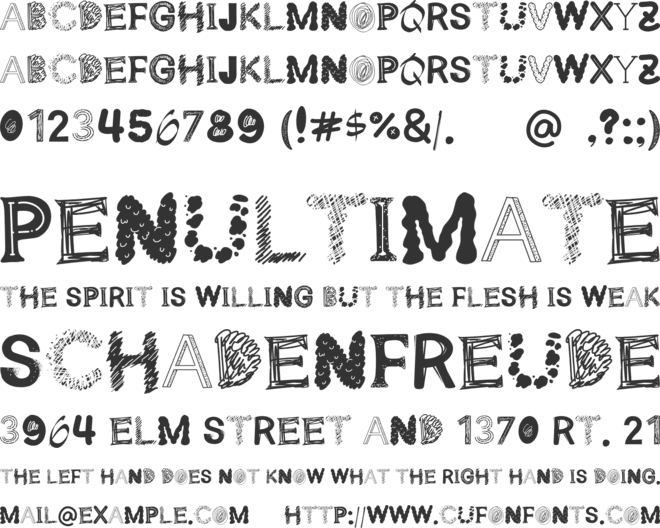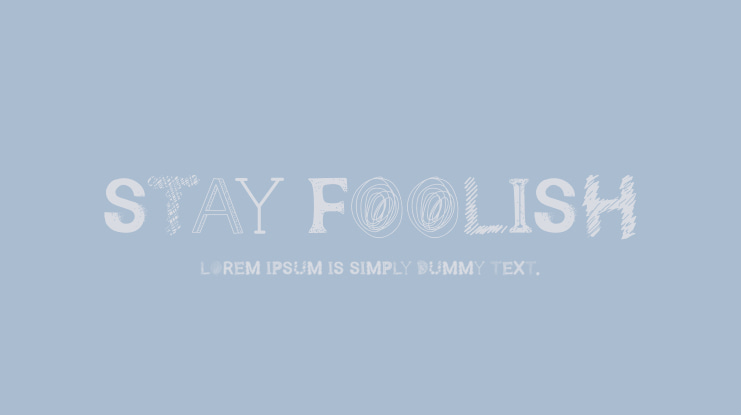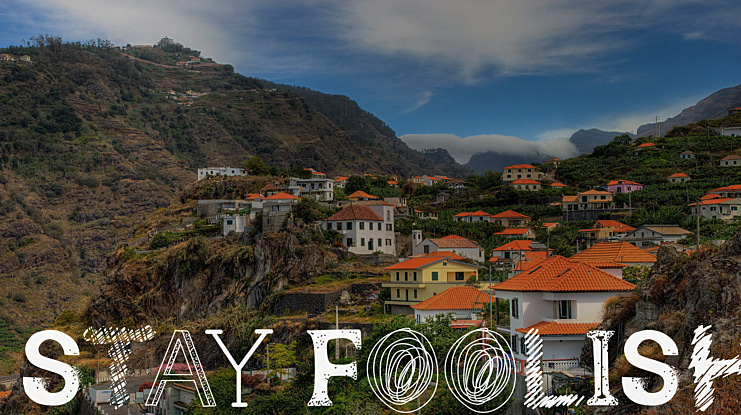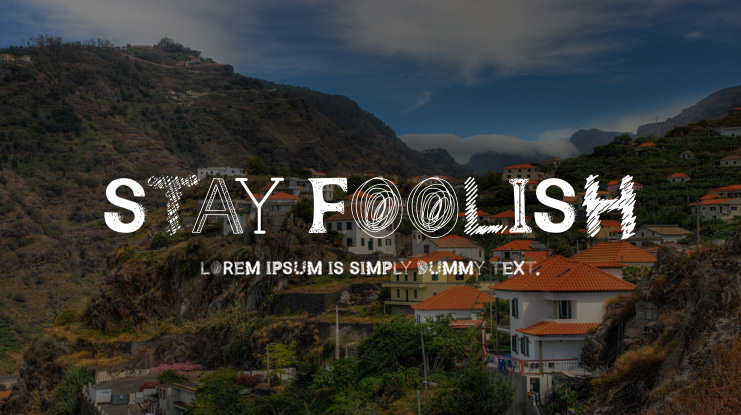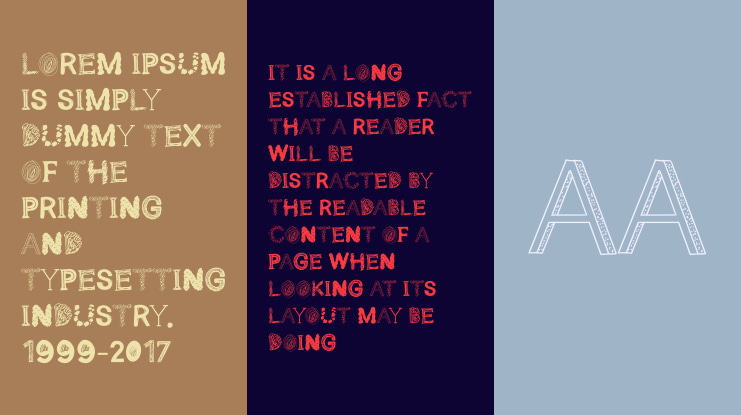
Stay Foolish Font
Introducing "Stay Foolish," an enchanting hand-drawn display font that radiates a delightful combination of quirkiness and individuality. With its playful strokes and charming imperfections, this font exudes an abundance of personality that effortlessly captures attention. Drawing inspiration from doodles and collages, "Stay Foolish" infuses a cheerful and carefree vibe into any project it graces.
Ideal for digital projects, this font adds a touch of whimsy to your designs, allowing them to stand out amidst a sea of conformity. Whether you're aiming for a trendy, laid-back aesthetic or a bold, eye-catching statement, "Stay Foolish" effortlessly adapts to fulfill your creative vision.
Each character has been meticulously crafted by hand, preserving its hand-drawn charm and resulting in an authentic and organic feel. Let "Stay Foolish" be the vibrant centerpiece of your next project, enticing viewers to explore a realm of imagination and playfulness. Enhance your design with this captivating font and embrace the power of staying foolish!
Stay Foolish Display Font